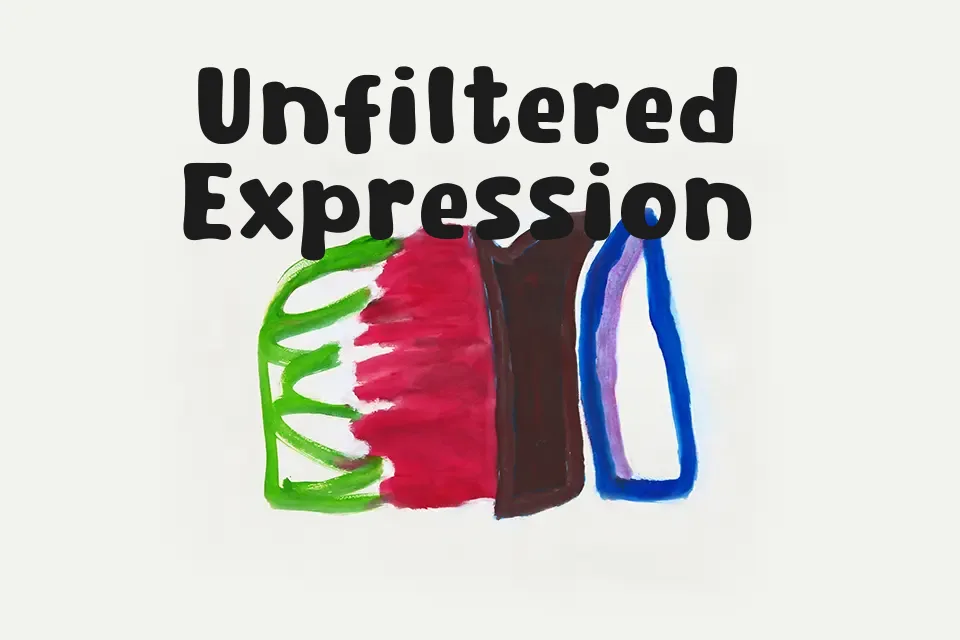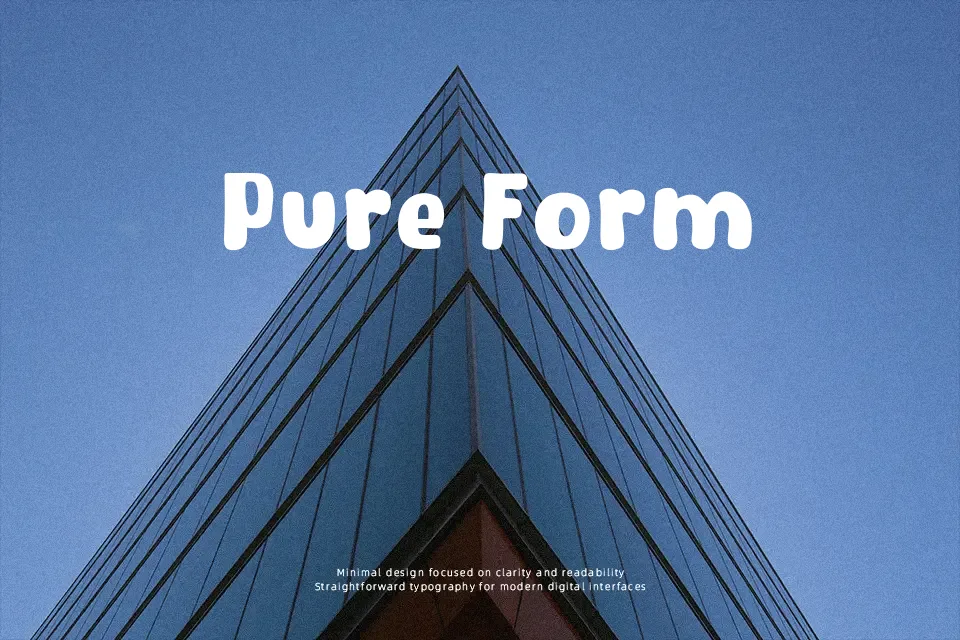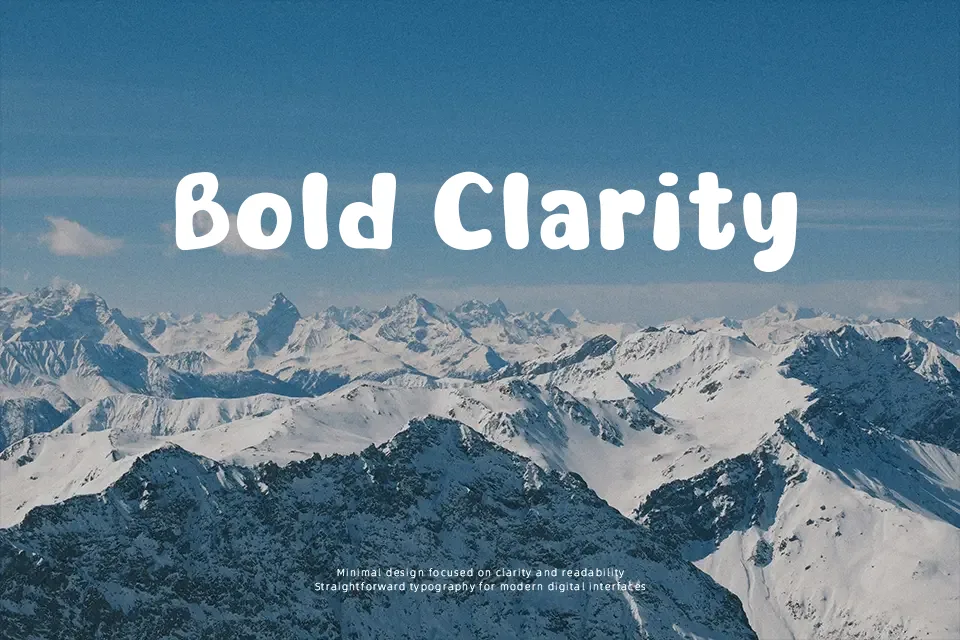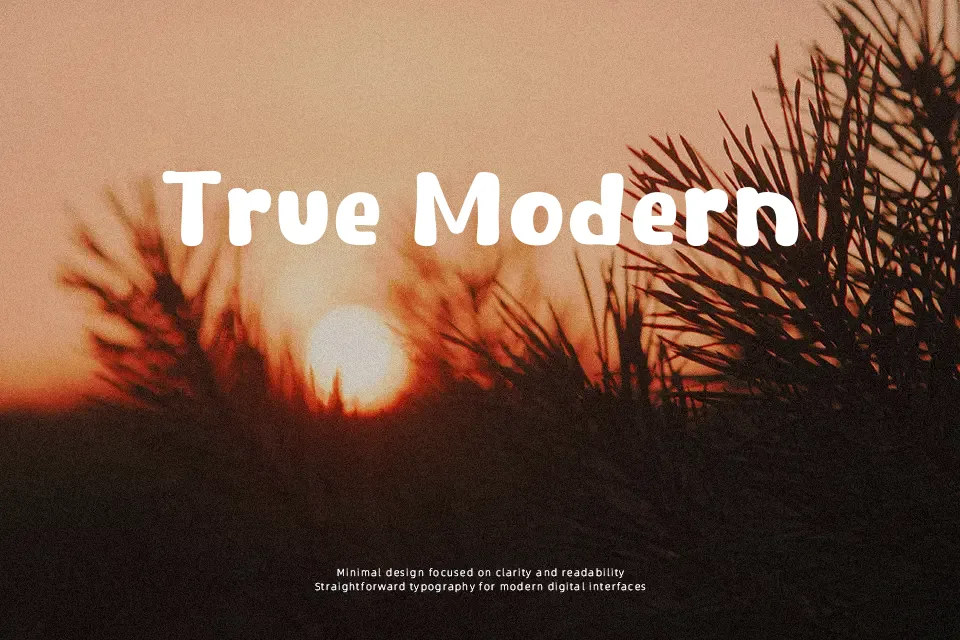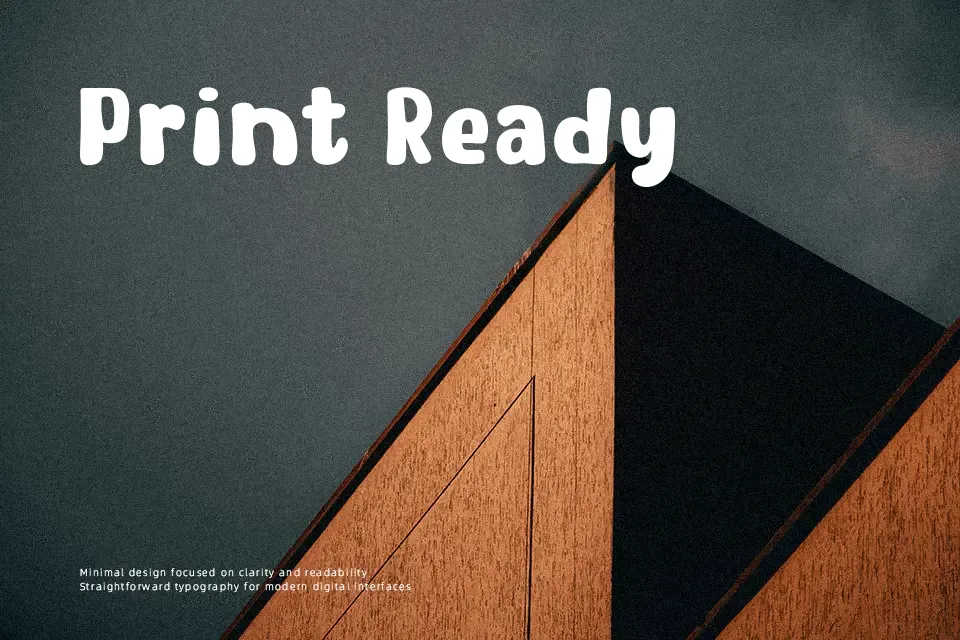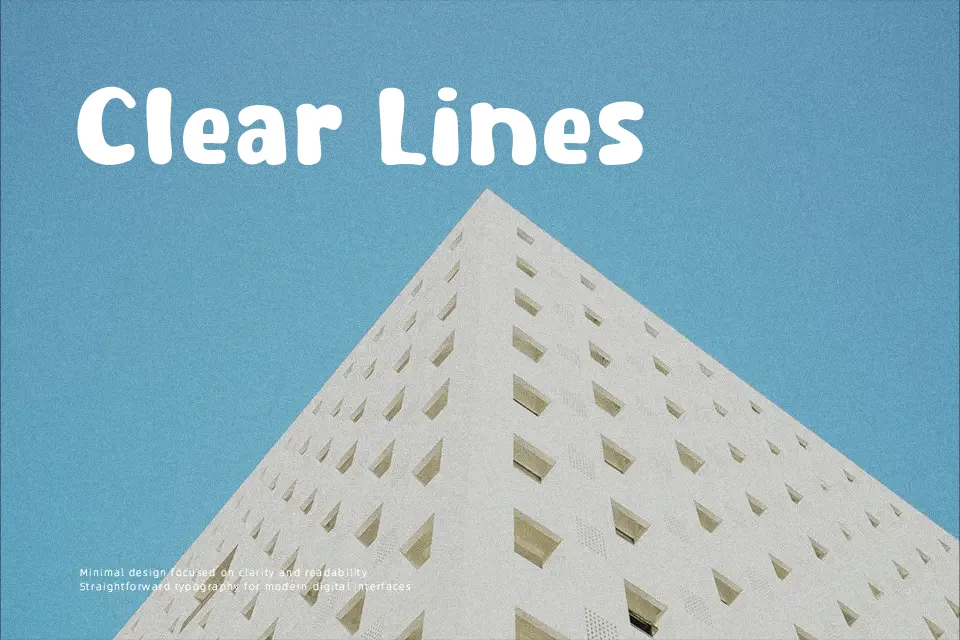
Baby Bumi Font
Baby Bumi leans into thick, rounded strokes and soft curves, giving letters a chunky, bubble-like feel with generous counters and comfortable spacing. The style comes across as casual and cartoonish rather than formal, which suits children’s themes, playful branding, and lighthearted headlines on storybooks, games, and snack packaging. Its weight and decorative character make short titles stand out, but longer paragraphs quickly feel heavy and tiring to read. Baby Bumi works well when you want friendly emphasis and a kid-focused mood, but it is a poor fit for serious editorial layouts or corporate communication where a cleaner sans serif would be more appropriate.
kids storybook covers and titles
toy or snack packaging aimed at children
playful logos for kids’ brands
headline text in children’s apps or games
long paragraph text or body copy
formal corporate reports or presentations
minimalist luxury branding
small-size UI labels or system text
Perfect for headline, kids, and logo, with a creative and cartoon style.